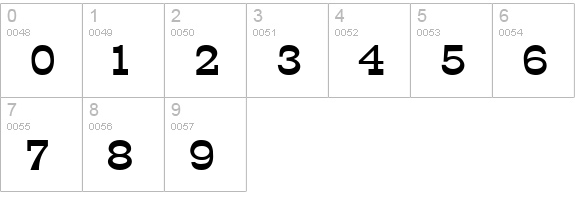
Circus Wide Bold Font Details
Circus Wide Bold is a strong, high-contrast, extended-width variant in the Circus typeface family \xE2\x80\x94 well suited to headlines, attention-grabbing titles, and strong calls-to-action.
Circus Wide Bold font is a striking and attention-grabbing typeface that exudes a sense of whimsy and playfulness. With its bold and wide letterforms, this font is perfect for creating eye-catching designs and headlines that demand to be noticed. The thick strokes and unique shapes of Circus Wide Bold create a sense of movement and excitement, making it ideal for circus-themed designs, posters, and branding projects. This versatile font is freely available to download at FontsMarket.com, allowing designers and creatives to easily access and use it in their projects. Whether you're working on a fun and festive poster, a vibrant logo, or a playful packaging design, Circus Wide Bold is sure to add a touch of charm and personality to your work. Embrace the creativity and energy of the circus with Circus Wide Bold font today!